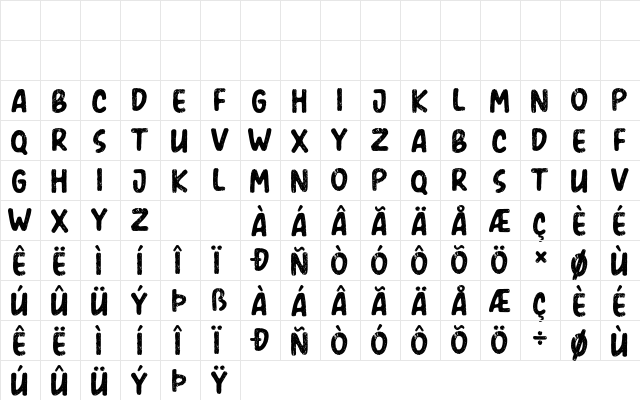
Amerio Rough Regular
| Designer | Rangga Singgih Subekti |
Design Context for Amerio Rough Typeface
Amerio Rough trades polish for personality, using distressed and eroded forms to bring grit and attitude to creative work.
Suited to punk-influenced zines, underground music branding, streetwear, and raw, anti-corporate design.
Pro Tip: Pair Amerio Rough with intentionally raw or lo-fi design elements. Fighting against it with overly polished surroundings will undermine its personality.